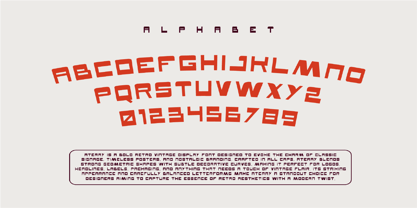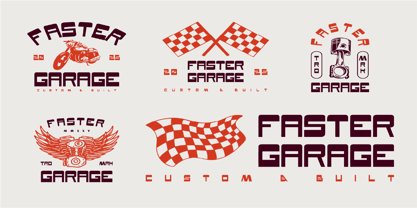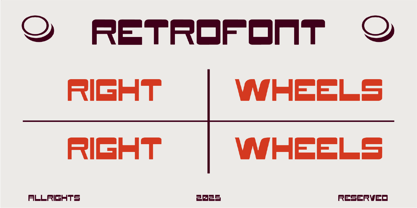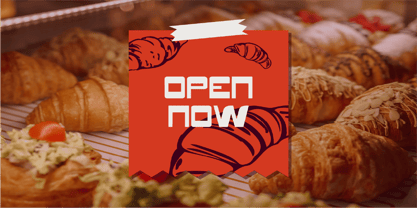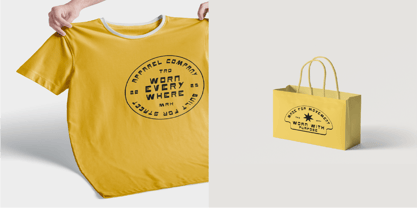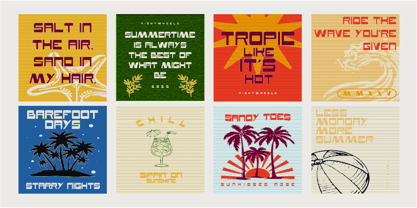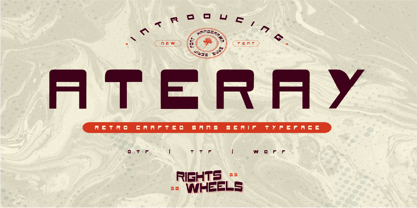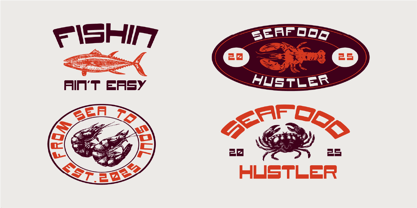
Ateray
A bold retro display font inspired by vintage typography from the 1970s and classic Indonesian pop culture. It features strong, rounded letterforms with a playful yet confident personality, making it perfect for eye-catching designs. This font brings a nostalgic atmosphere with a modern touch, suitable for posters, logos, album covers, branding, packaging, and social media graphics. Its distinctive retro style adds warmth, character, and visual impact to any design.